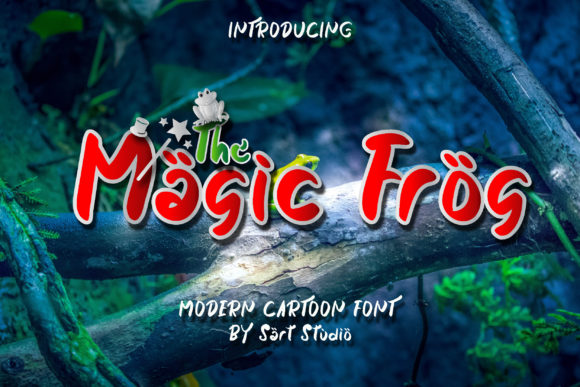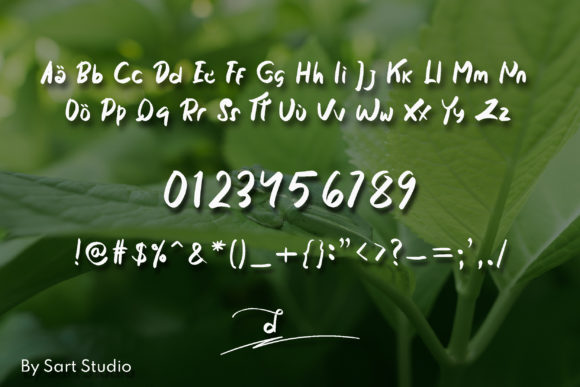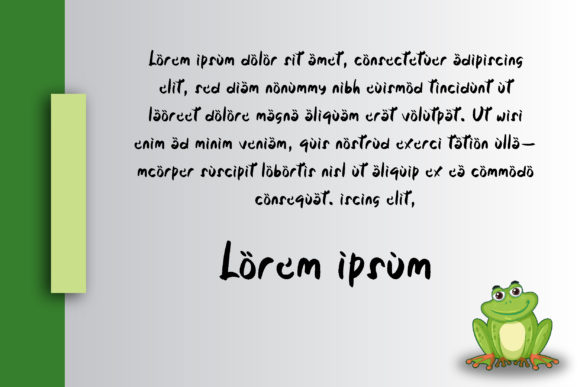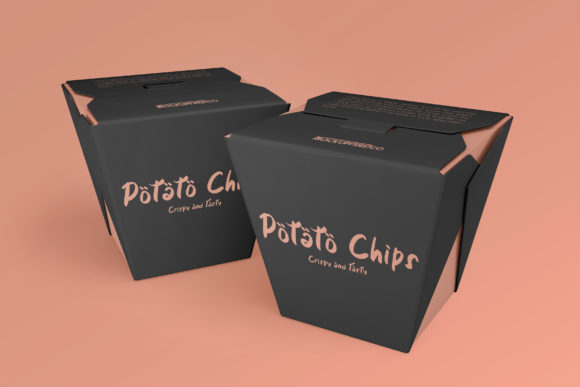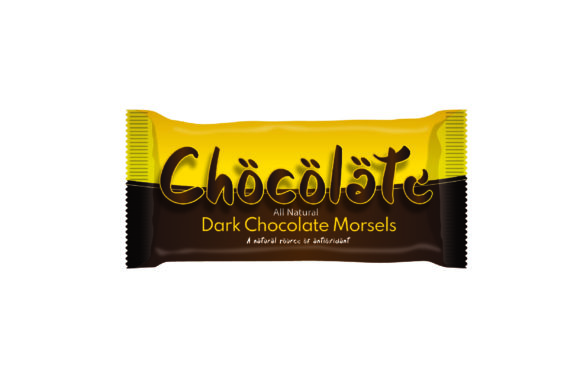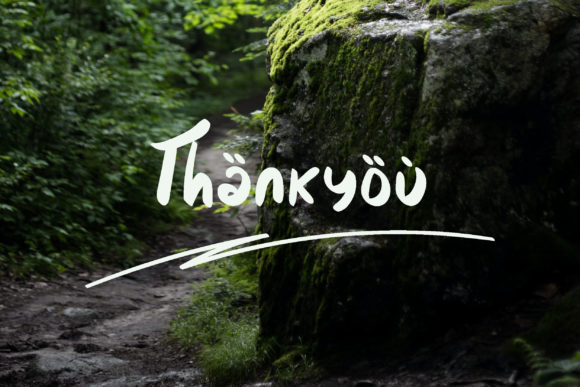
The Magic Frog Font
About The Magic Frog Font
The Magic Frog is a tasteful handwritten font. Whether you’re looking for fonts for Instagram or calligraphy scripts for DIY projects, The Magic Frog will turn any creative idea into a true piece of art!